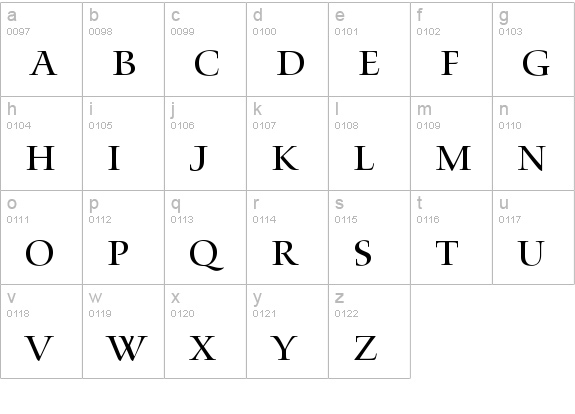
Introducing Waters Titling Pro, a stunning and versatile font that is sure to make a lasting impression. This font embodies elegance, sophistication, and modernity, making it the perfect choice for any design project. With its clean lines and sharp edges, Waters Titling Pro exudes a sense of professionalism and refinement. Whether you're creating a logo, designing a website, or crafting a beautiful print piece, this font will elevate your work to new heights. One of the best things about Waters Titling Pro is that it is free. Yes, you read that right - this incredible font is freely available to download at FontsMarket.com. Now, you can access this exceptional typeface without any cost, allowing you to enhance your designs without breaking the bank. Waters Titling Pro offers a wide range of weights and styles, giving you the freedom to experiment and find the perfect fit for your project. From bold and impactful headlines to elegant and delicate body text, this font has it all. With its extensive character set, including multilingual support, Waters Titling Pro ensures that your message can be communicated effectively across different languages and cultures. This font also includes various OpenType features, such as ligatures and alternate glyphs, allowing you to add that extra touch of creativity to your designs. Whether you're a seasoned designer or just starting out, Waters Titling Pro is a must-have addition to your font library. Its versatility, elegance, and the fact that it is free to download at FontsMarket.com make it an unbeatable choice for any creative project. So, go ahead, download Waters Titling Pro today and unlock the potential of your designs.